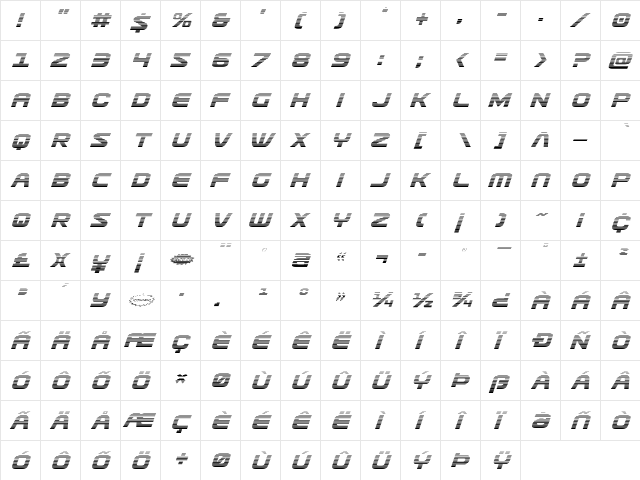
Usuzi Gradient Italic Italic
Design Context for Usuzi Gradient Italic Typeface
Usuzi Gradient Italic takes a measured approach to typography — its balanced proportions and neutral character make it a reliable workhorse for both digital and print work. Its italic angle brings a sense of urgency and motion to the letterforms.
Pro Tip: Try Usuzi Gradient Italic for annotation and caption copy alongside an upright companion — the contrast in angle creates a dynamic but ordered typographic system.